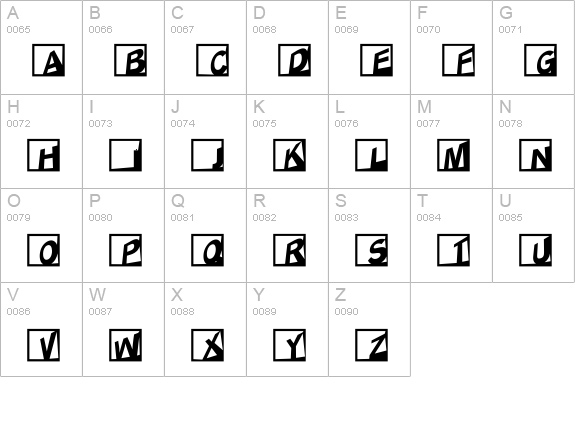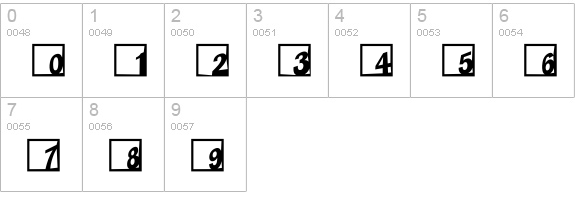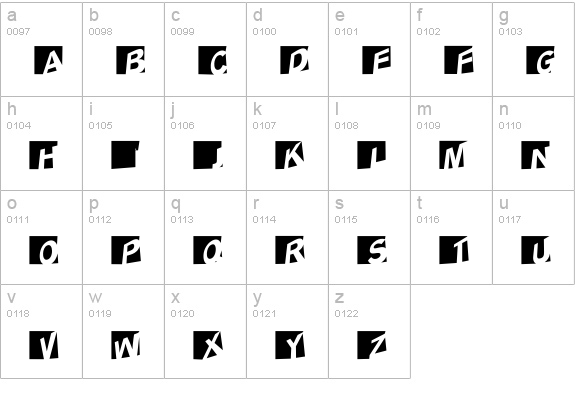
ABCLogosXYZCrazy-Oblique Font Details
ABCLogosXYZCrazy-Oblique is a distinctive, italic variant in the ABCLogosXYZCrazy typeface family \xE2\x80\x94 well suited to design and typography projects.
Introducing ABCLogosXYZCrazy-Oblique font, a playful and dynamic typeface that exudes creativity and energy. With its quirky slanted design and bold letterforms, this font is perfect for making a statement in your designs. Whether you're working on a logo, poster, or branding project, ABCLogosXYZCrazy-Oblique font will add a touch of fun and personality. Best of all, this font is available for free download at FontsMarket.com. Simply visit the website to grab your own copy of this unique and eye-catching typeface. Don't miss out on the opportunity to add ABCLogosXYZCrazy-Oblique font to your font collection and elevate your design projects to the next level.